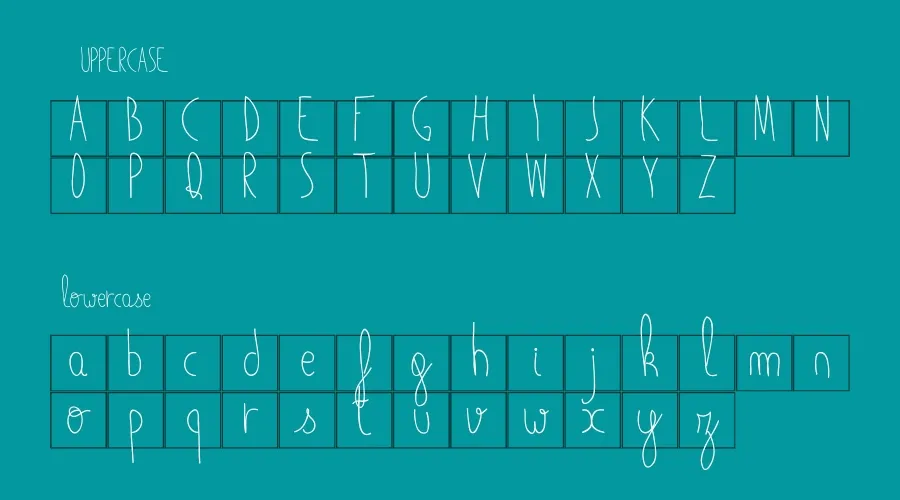
Mailinh Font
About Mailinh Font
Hereisjonas designed Mailinh Font. This design is noteworthy for its utilization of colors, which are frequently employed to represent various categories or data items.
The typeface belongs to the Handwritten font family as a team member. It makes it suitable for message tasks like programming when understanding and cleanliness are crucial.
The unusual appearance of this font design appeals to consumers in general as well as to gaming. With the assistance of the online font tool generator, anyone can create such a font design aesthetic.
Video game players as well as other people who value its distinctive appearance are also fans. For usage in programming, transcriptions, word processing, worksheets, conferences, etc.
Any application that needs a taken-to-the-extreme typeface would benefit greatly from using the Mailinh Font.